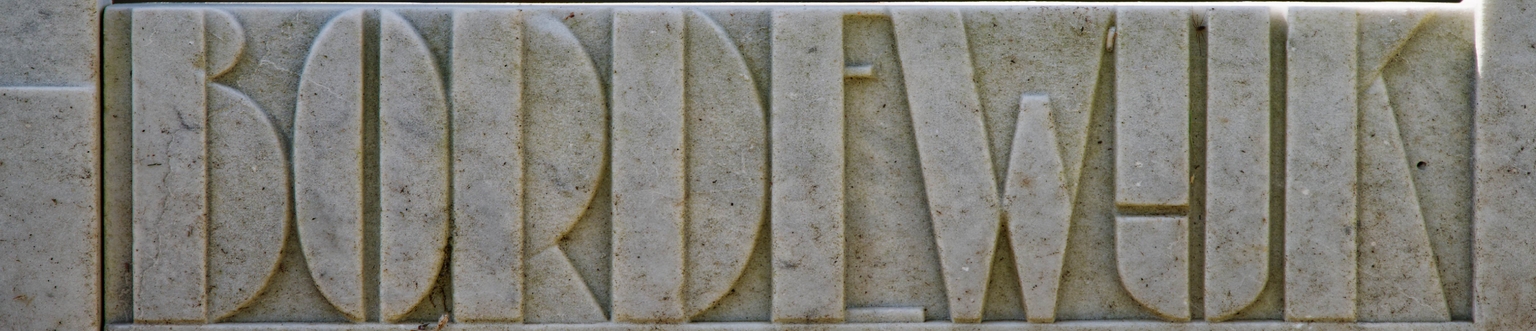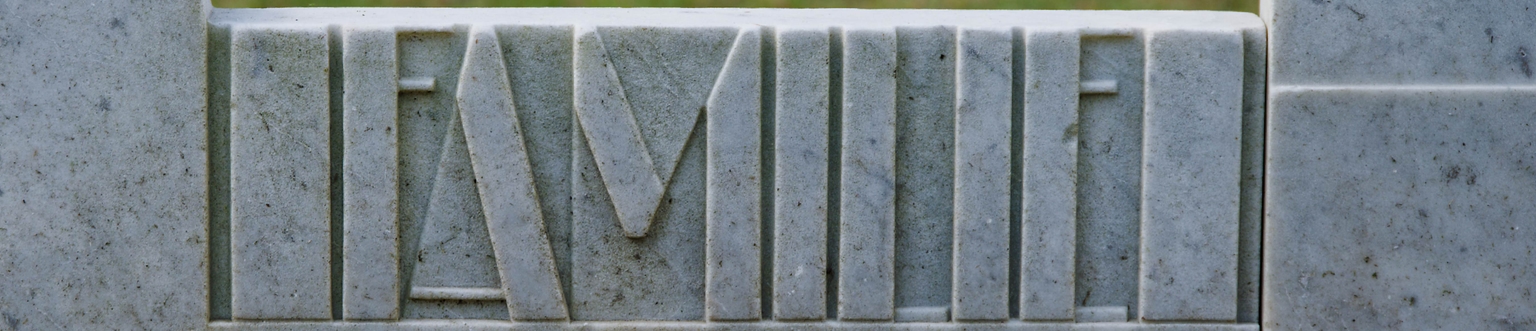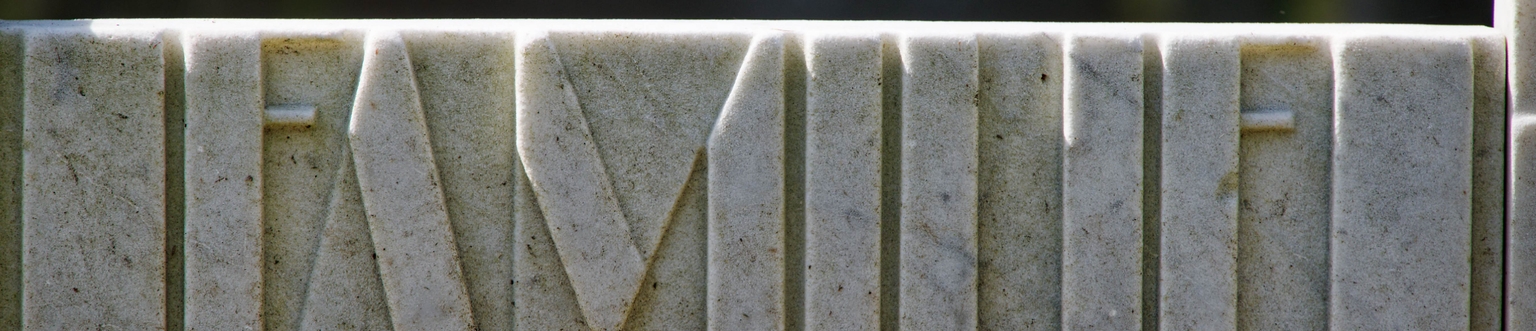
Karmix
Karmix is a geometric, ultra-condensed, stencil-looking sans designed by Ramiro Espinoza, based on the distinctive lettering carved on the tomb of the Bordewijk family at the Oud Eik en Duinen cemetery in The Hague. With its clean lines, sharp cuts, and modular construction, the original inscription reflects a unique fusion of modernist clarity and solemn elegance—an austere yet refined example of early 20th-century Dutch funerary lettering.
Espinoza has expanded this forgotten carved alphabet into a full typeface that balances precision and expressiveness. The stencil design of many of its letters adds a graphic tension to its condensed geometry, giving Karmix a sculptural quality that is ideal for poster design, brochures, branding, and cultural projects seeking a bold yet thoughtful voice.
Far more than a historical revival, Karmix reimagines a moment where typography, art, and architecture intersected in quiet beauty. It brings new life to a hidden detail of The Hague’s design heritage. Now available through Brutal Types, Karmix invites designers to explore the power of restraint and form.